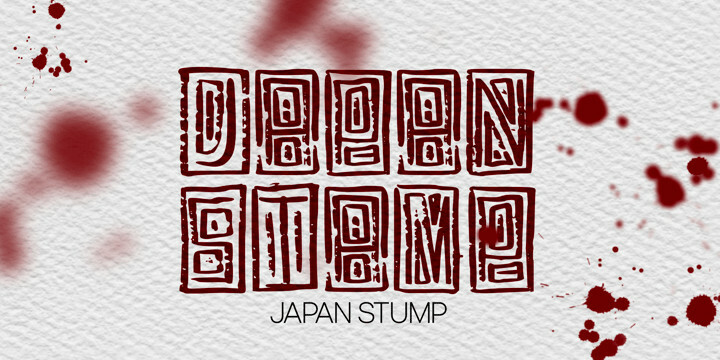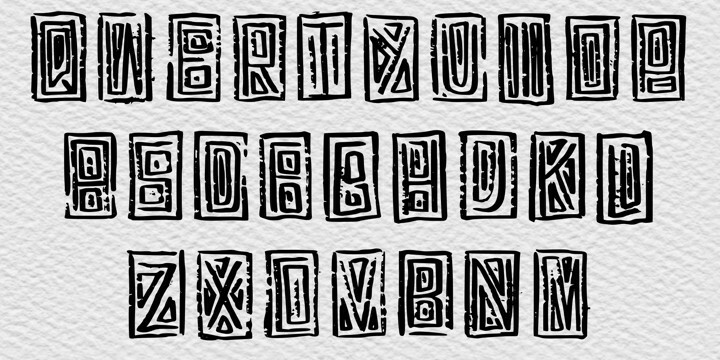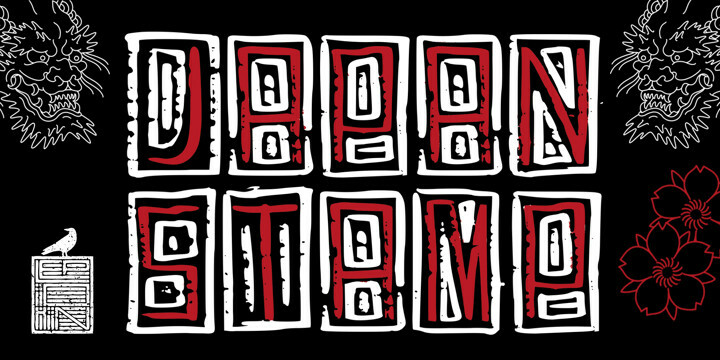
Japan Stamp Font
Japan Stamp FontJapanese stamp – when creating this font, the author wanted to create a font unlike any other, taking inspiration from Japanese culture and history. It is one of a kind and unique font. It will immerse you in the historical era and add mystery to any of your projects. Anyone who wants to stand out among all this font will suit as out of place.